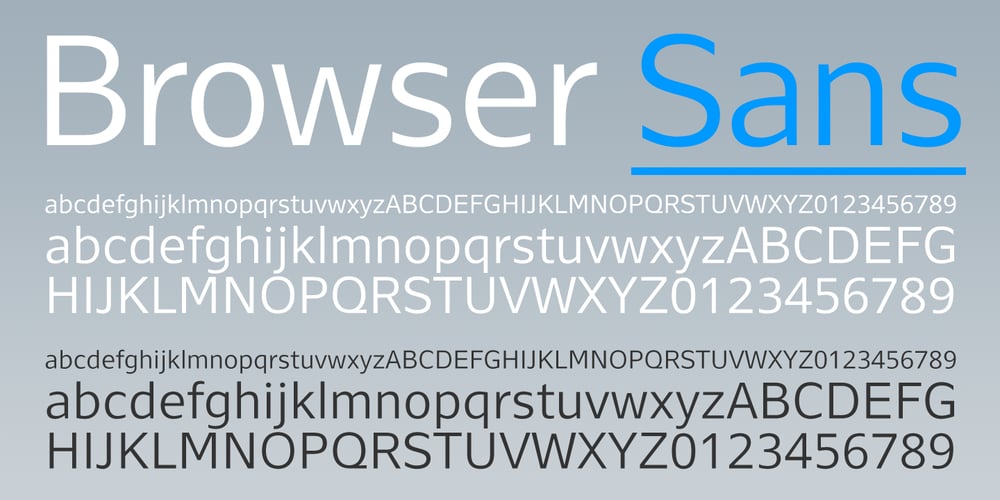
Browser Sans Font Family was designed by Nicholas Garner and published by AVP. Browser Sans contains 4 styles and family package options. Browser Sans is a companion to Browser Serif, sharing similar forms and metrics. The four styles (Regular, Italic, Bold and Bold Italic) make it simple to use in desktop applications and easy to implement on websites.